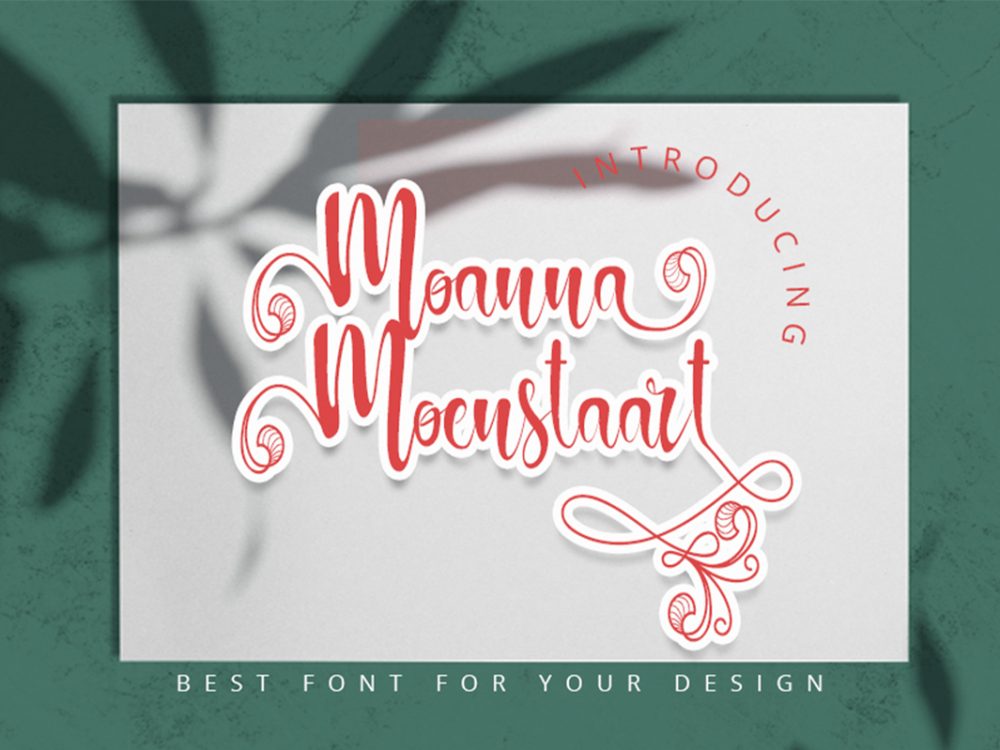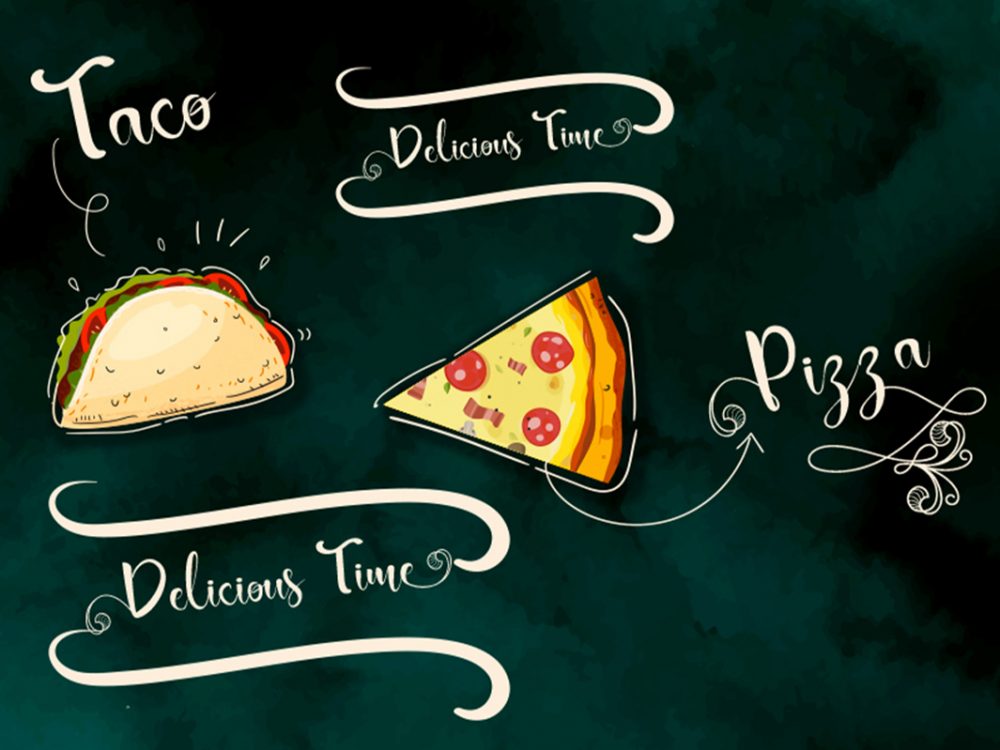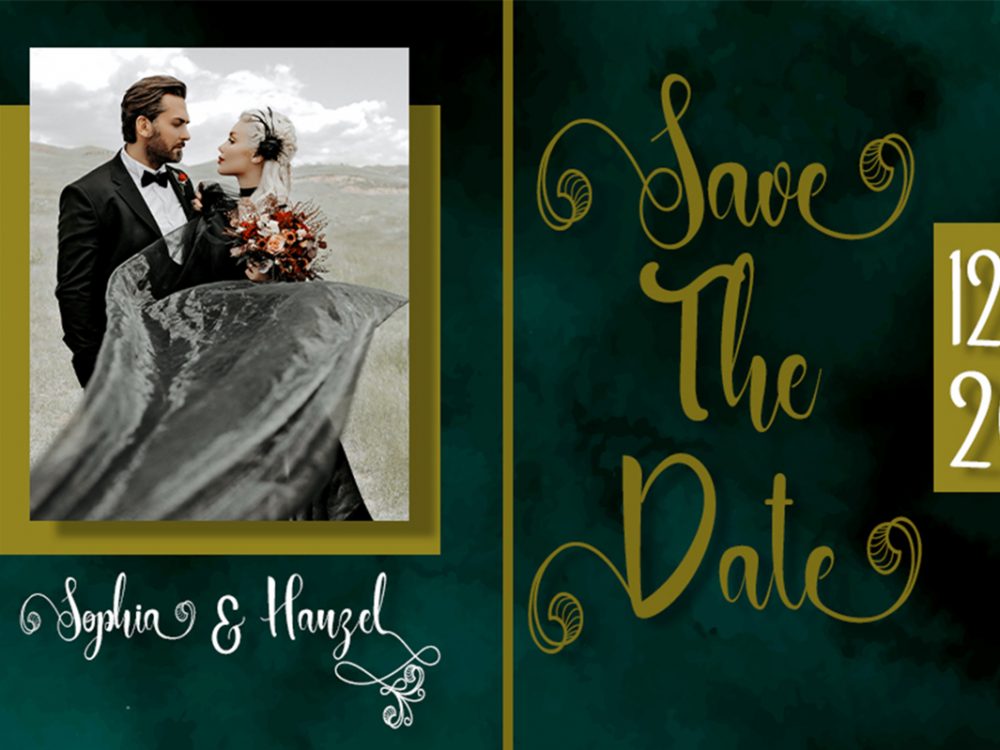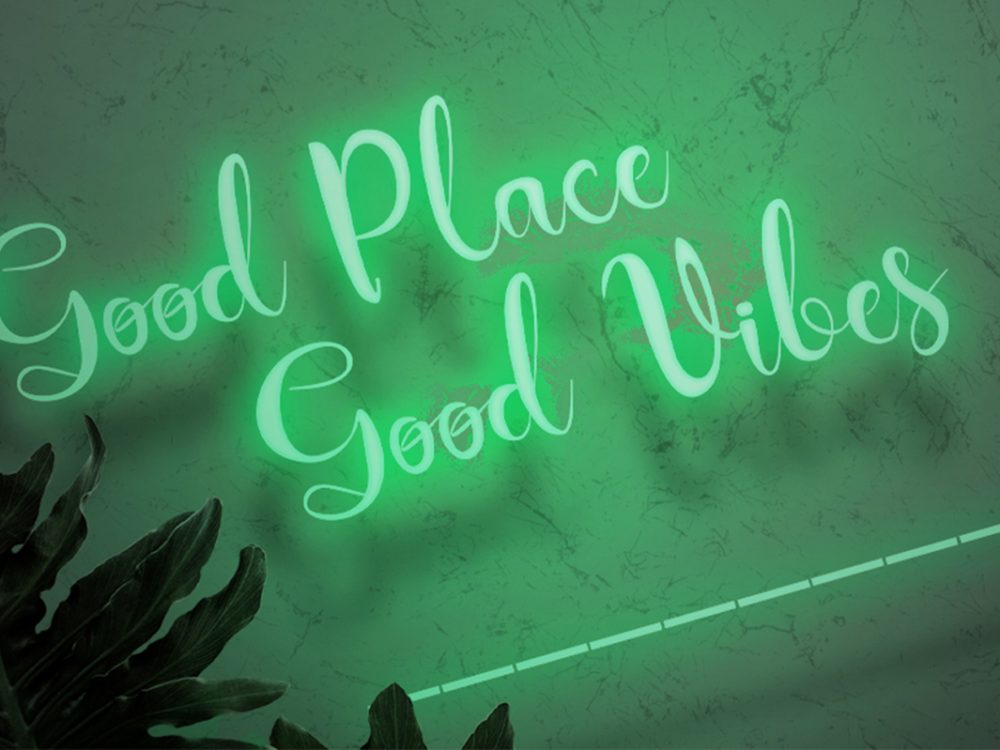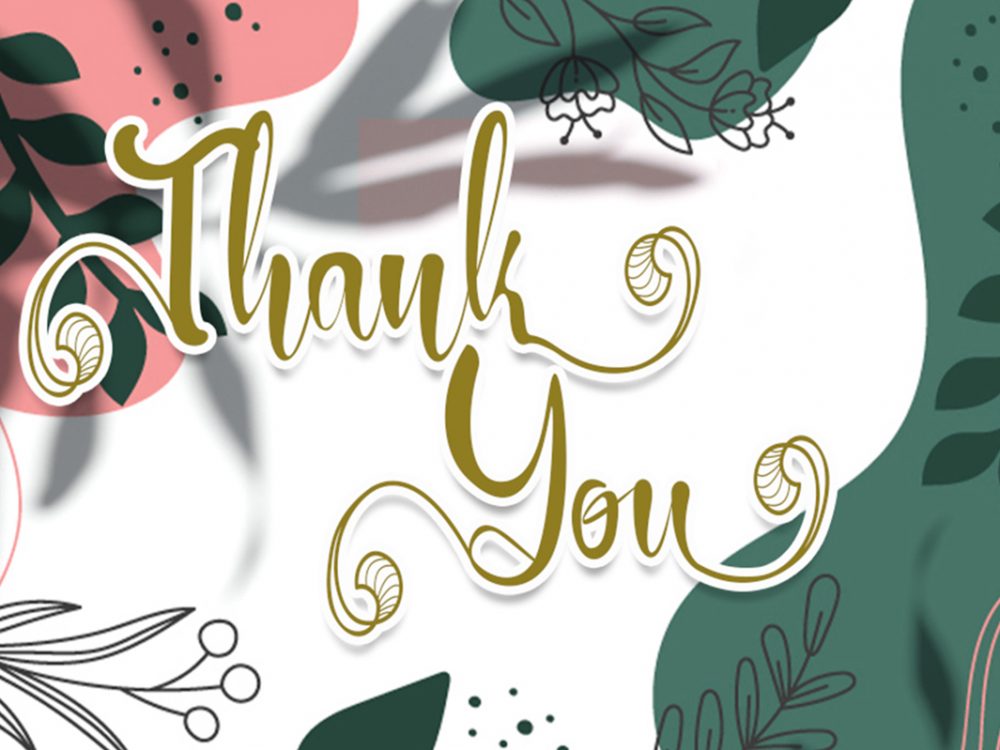
Moanna Mocustaart Free Font
Moanna Mocustaart Free Font is an interesting calligraphic font with an elegant style. This font offers your personal touch to your latest art project with an elegant, classy, ​​and modern look. It is very well suited for creating various projects that require a script font. You can use this font to create memorable posters, wedding invitations, greeting cards, branding, flyers, t-shirt and pillow prints, and more. If you like it don’t forget to check out the full version.